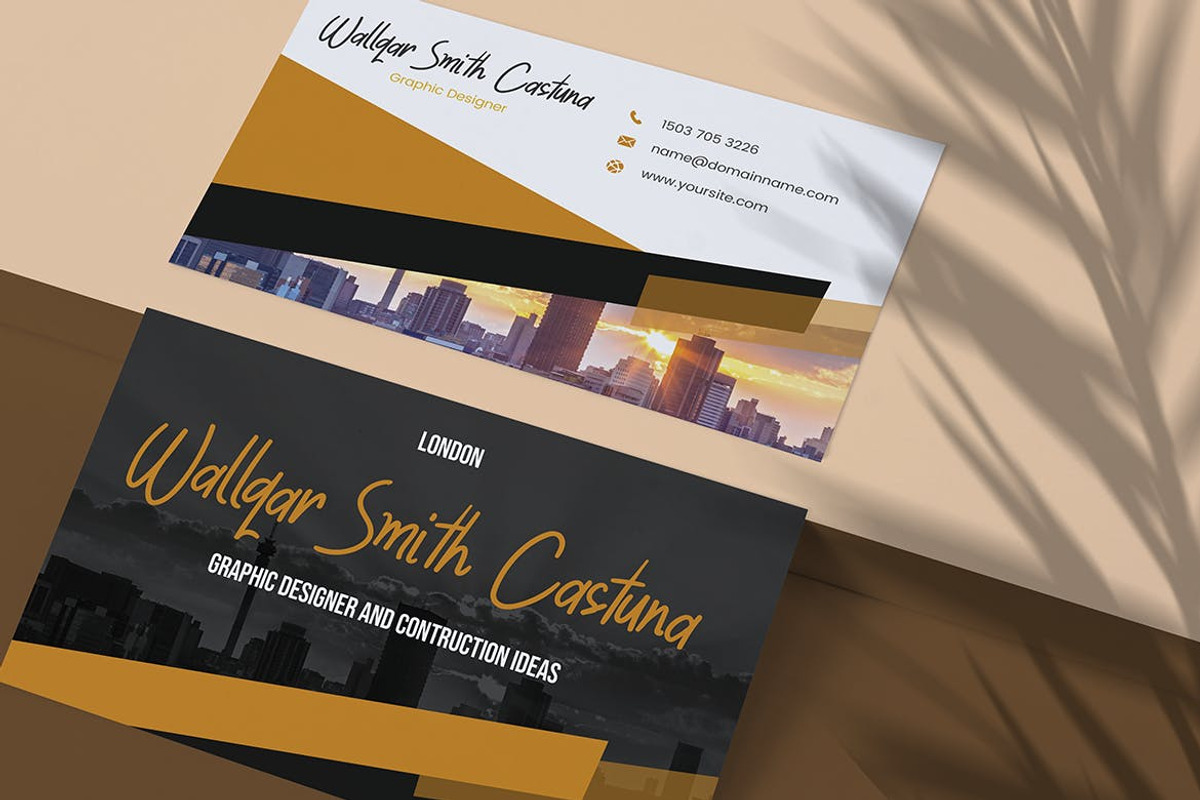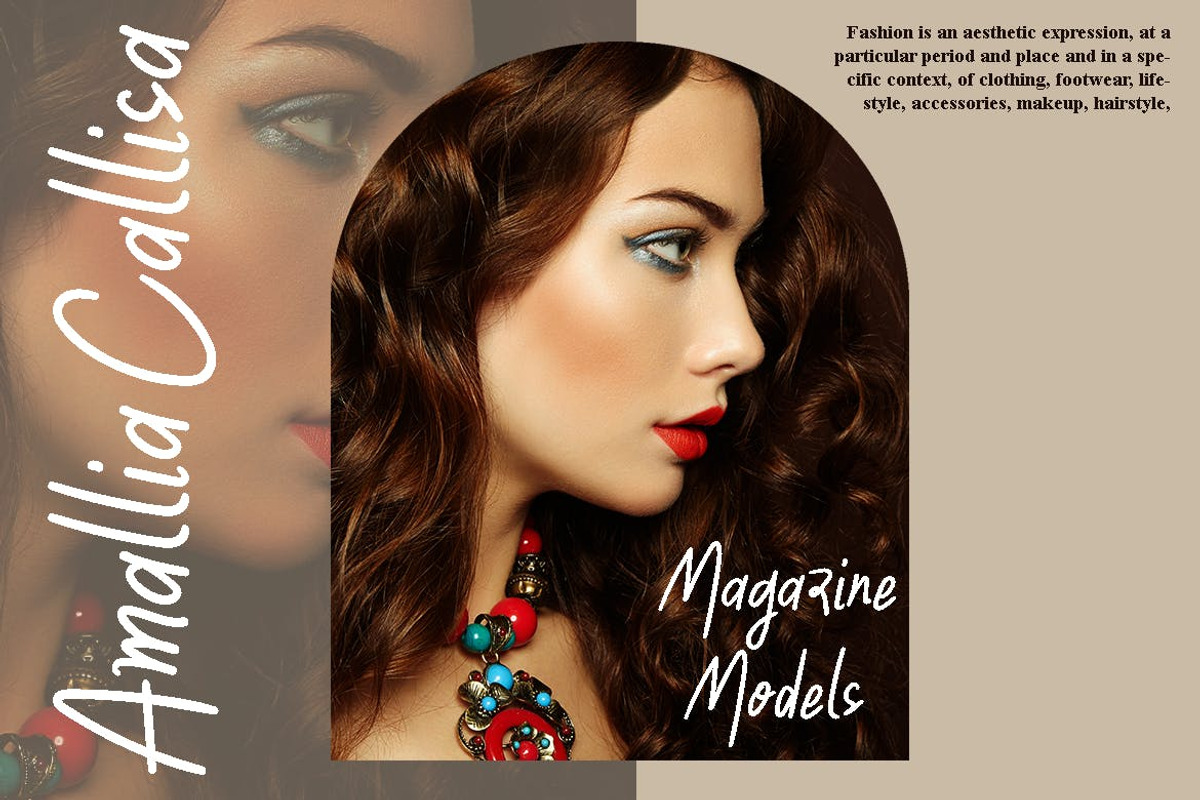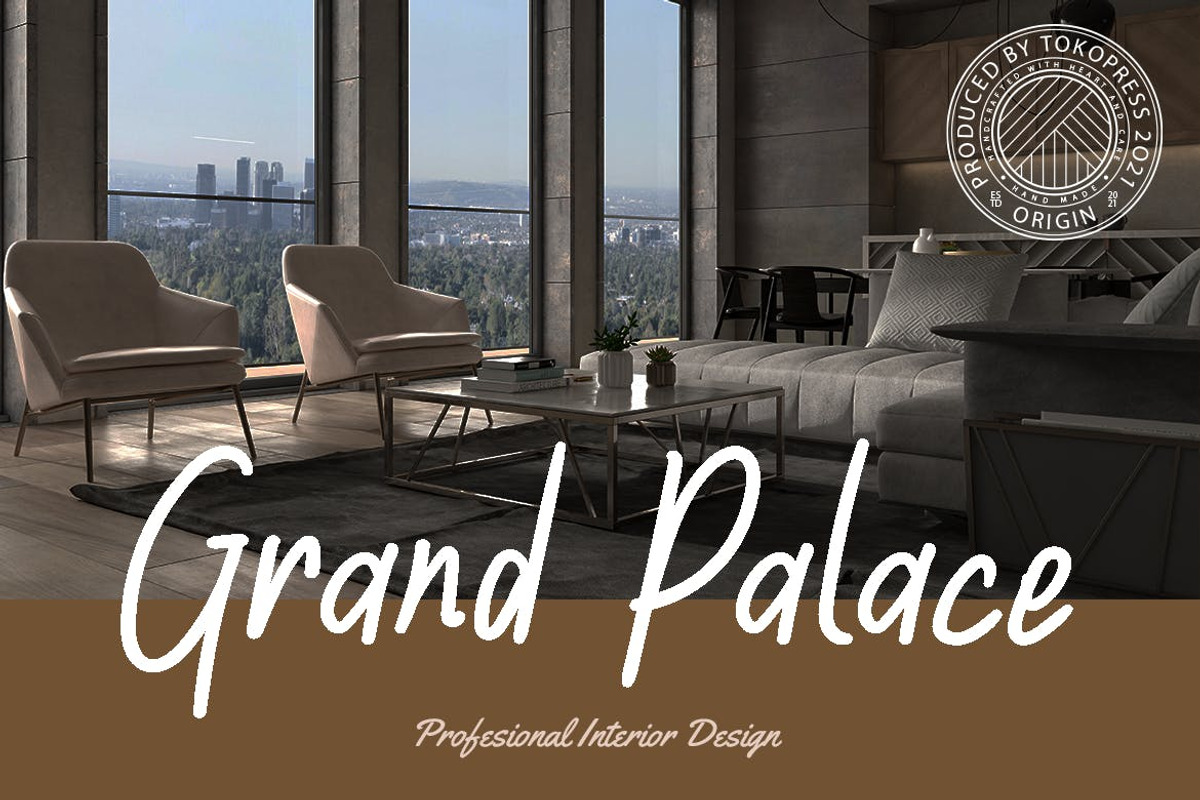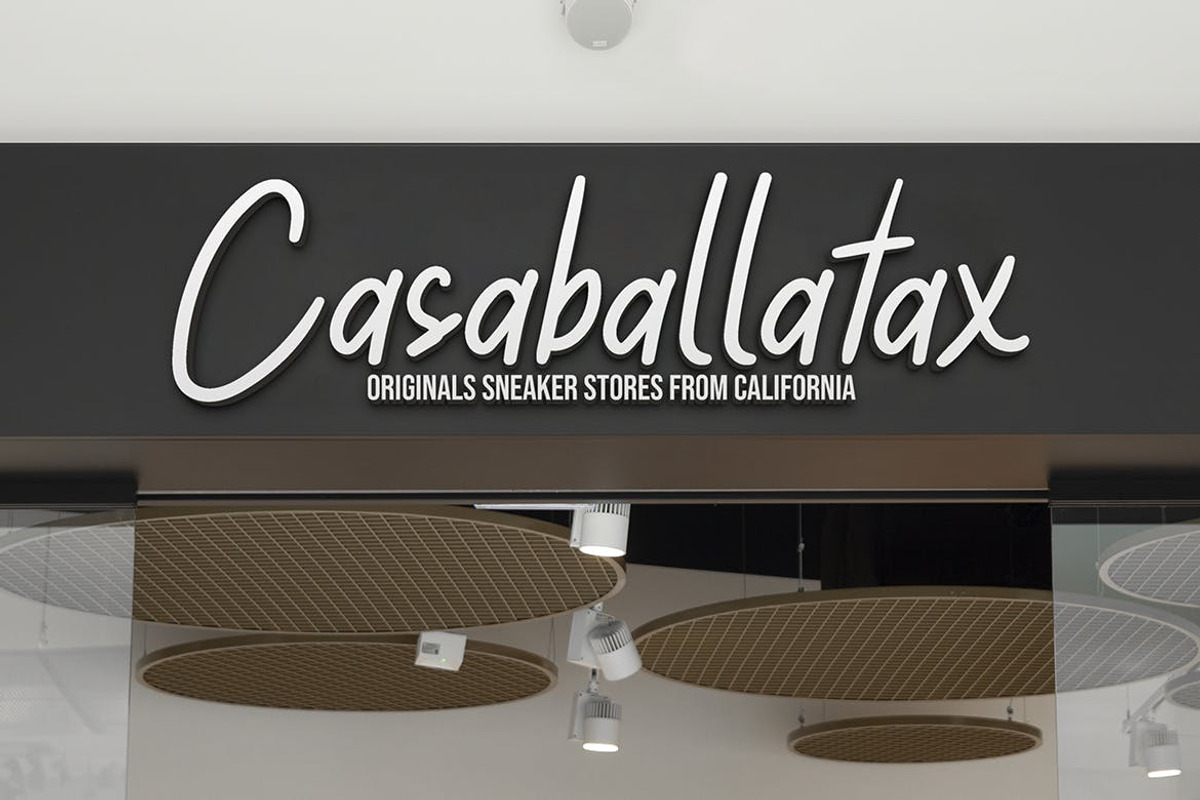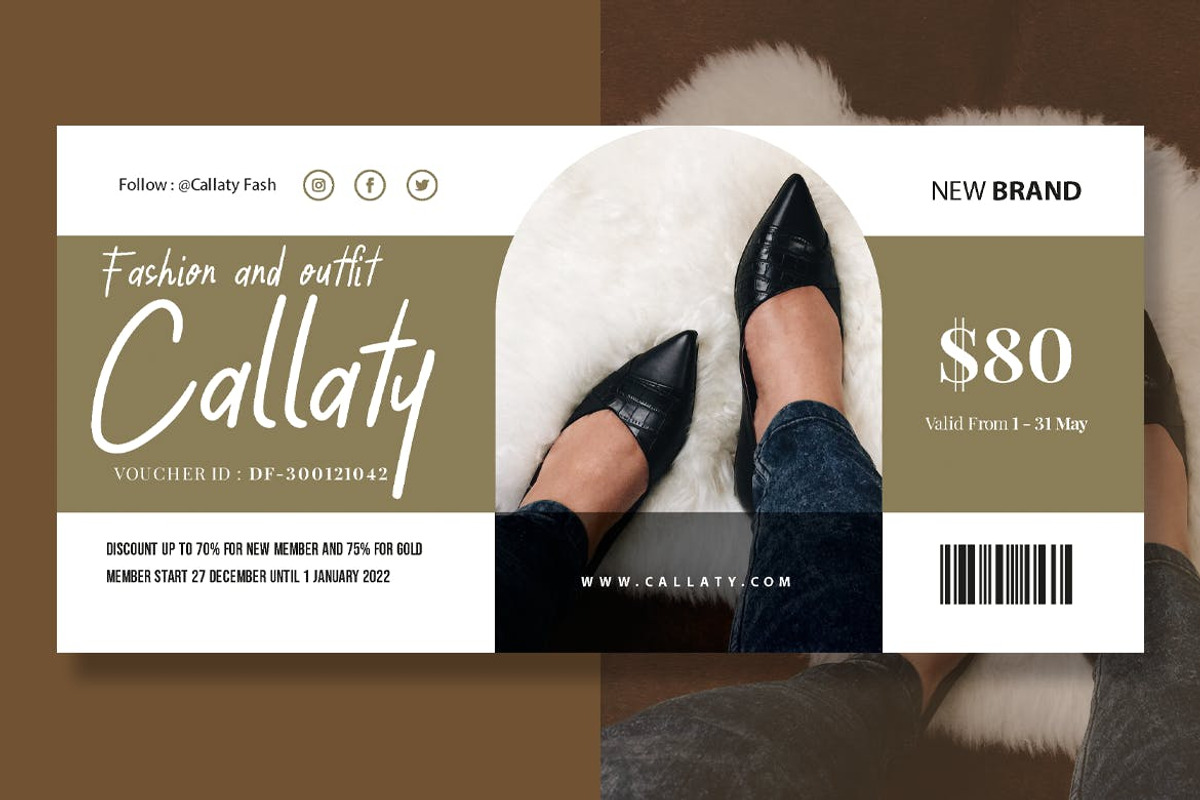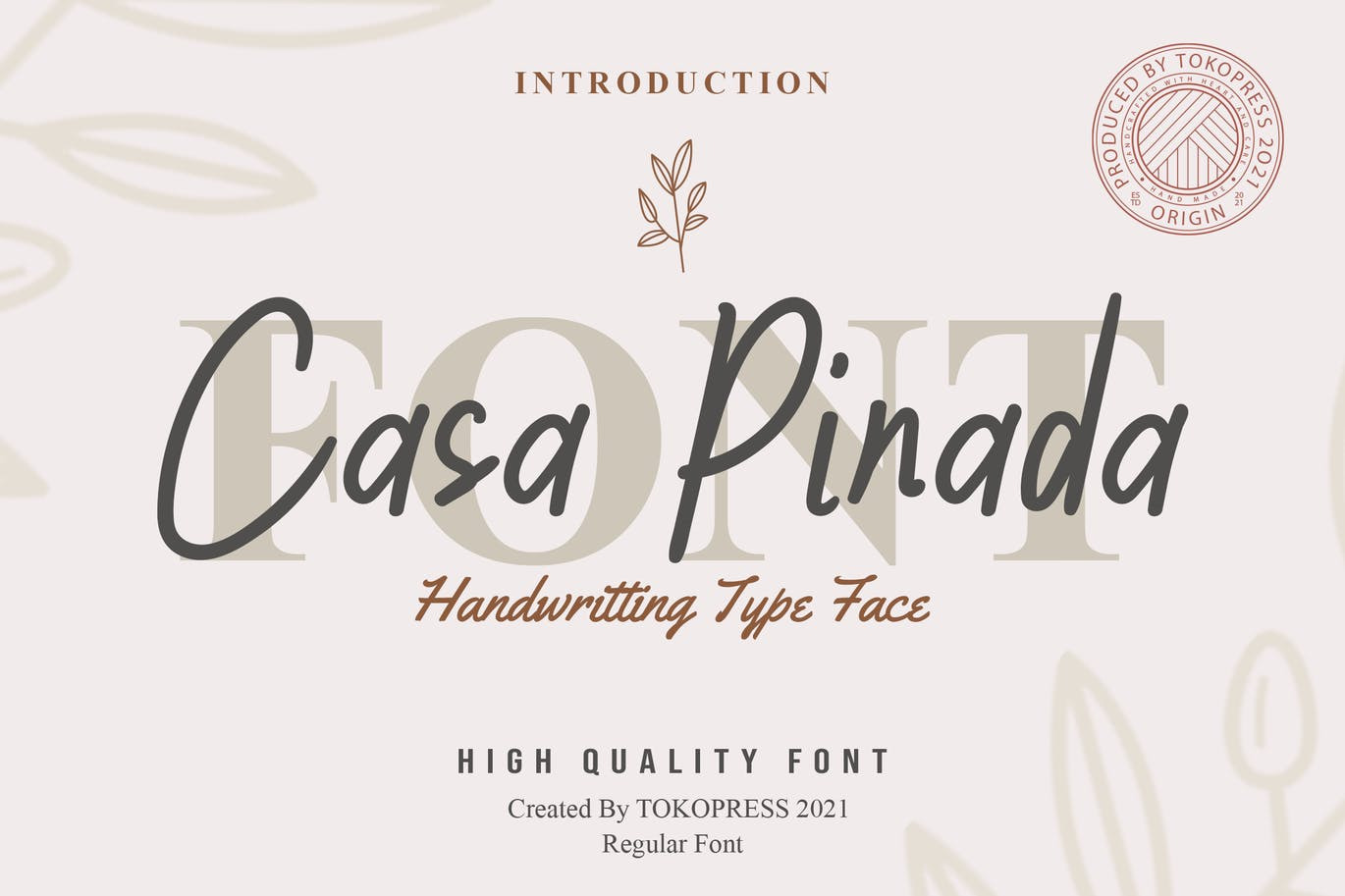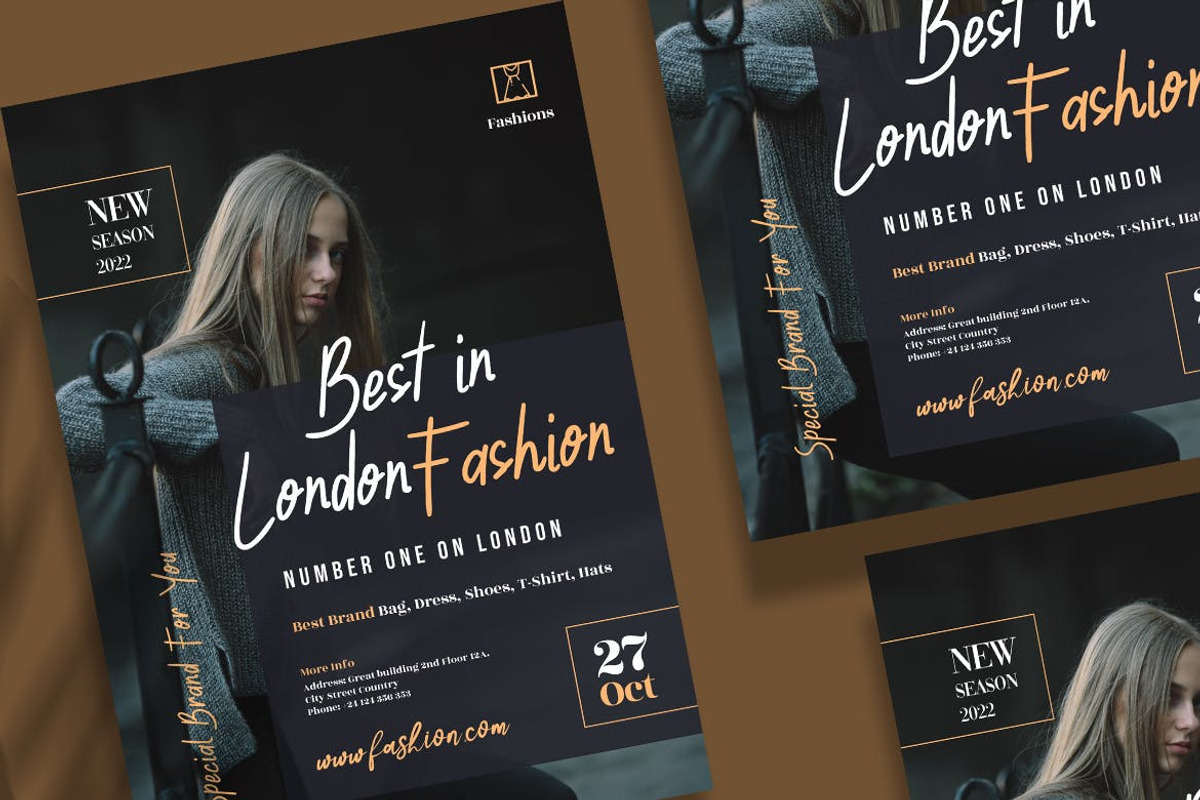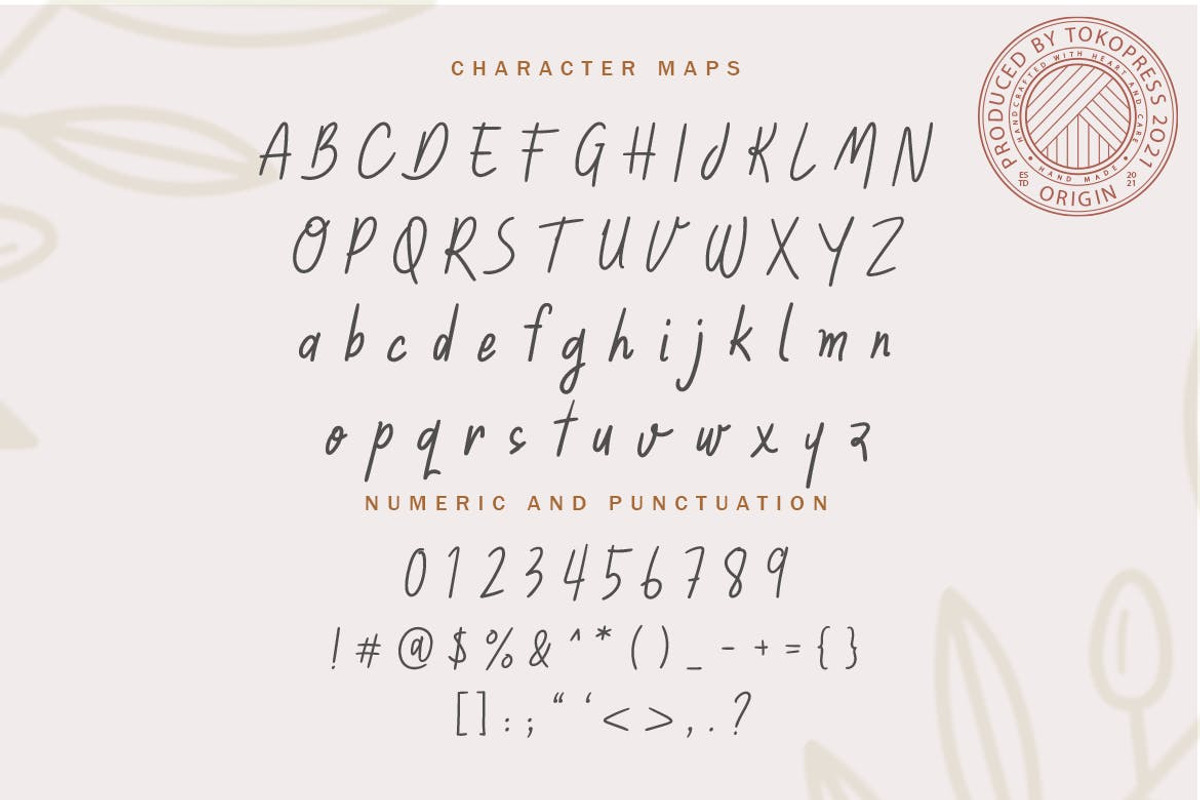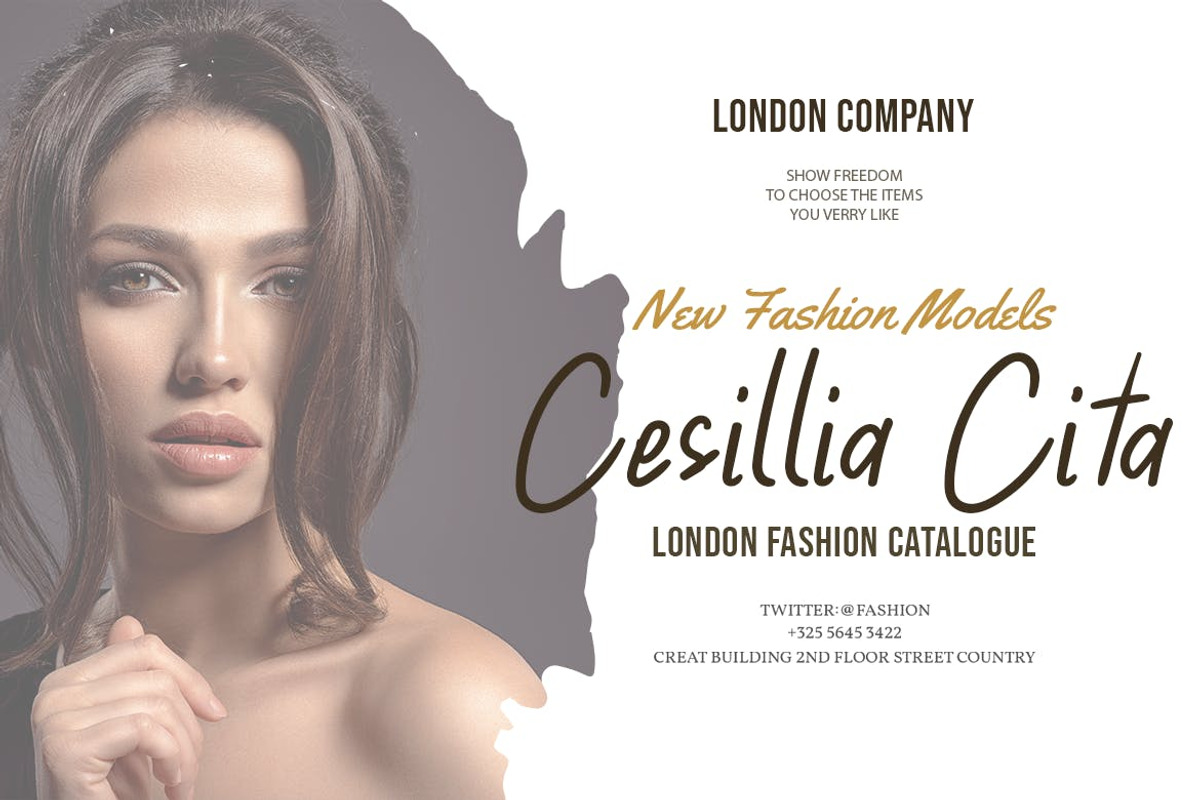
Casa Pinada - Girly Fancy font
Light on the feel, elegant on the look. Casa Pinada will bring a feminine touch to the designs you are working at.
Suit perfectly for Girl/ Woman segmented magazine, poster, movie title, travel and leisure poster, youtube covers, youtube thumbnails, social media page covers and so on...